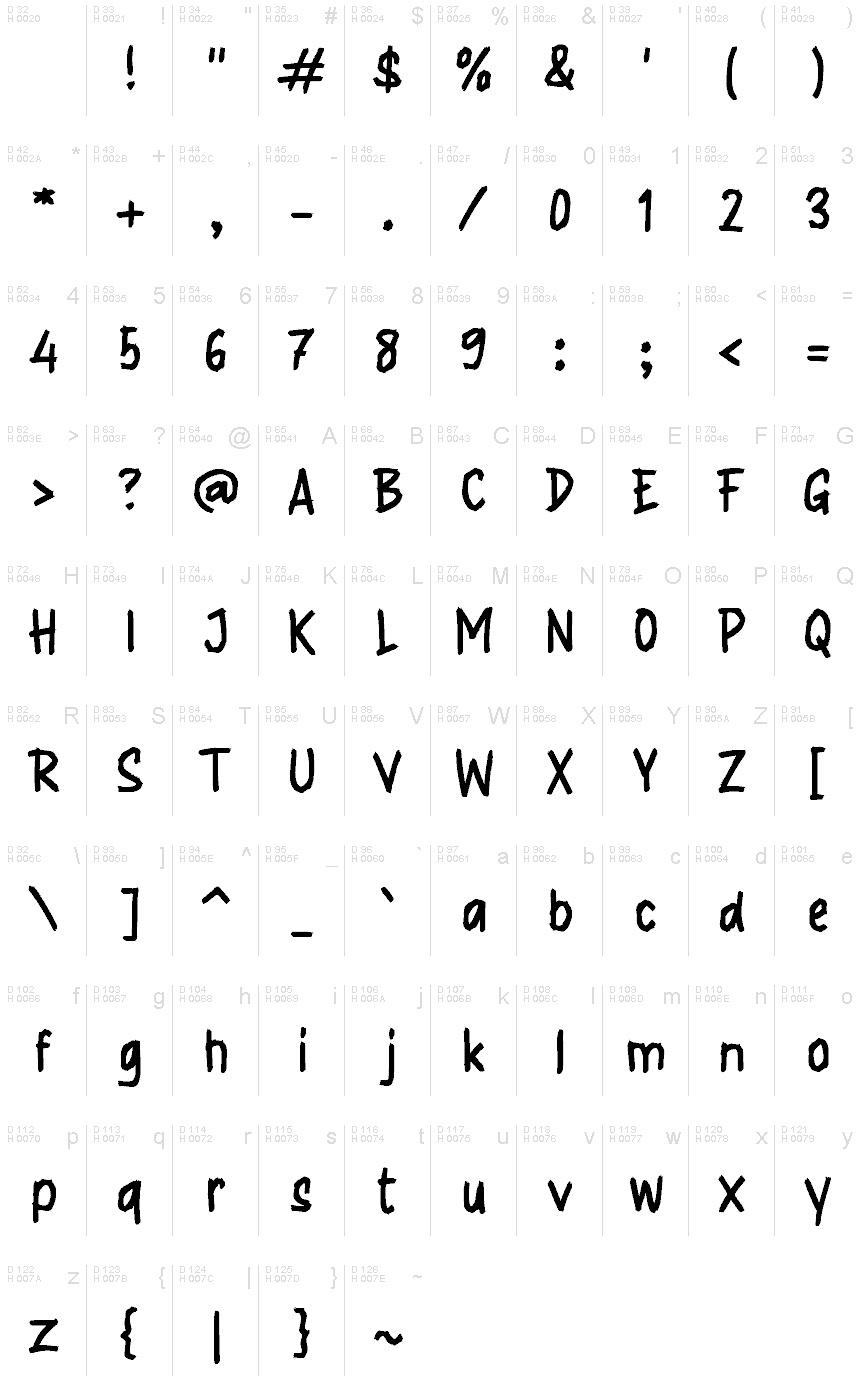
Isma
Isma font is a free brush font by wep with an organic feel and expressive character. The artistic impression comes naturally for designers who choose to make use of this font which carries a natural rough texture.